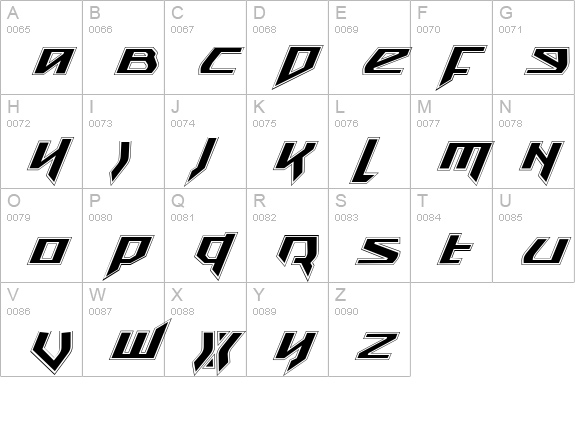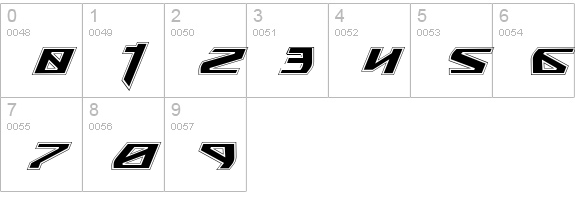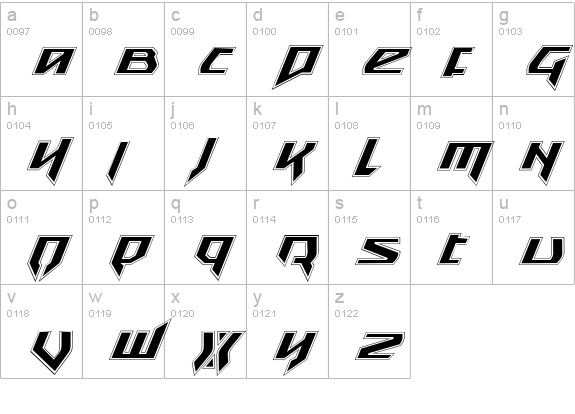
Snubfighter Academy Italic is a distinctive, italic variant in the Snubfighter typeface family \xE2\x80\x94 well suited to design and typography projects.
Snubfighter Academy Italic font exudes a sense of modern sophistication and sleek elegance, making it the perfect choice for projects that require a touch of refinement. Its sleek, slanted style adds a dynamic and contemporary flair to any design, whether it be for branding, advertising, or editorial purposes. With its clean lines and stylish curves, Snubfighter Academy Italic font strikes the perfect balance between professionalism and creativity, making it a versatile option for a wide range of design projects. Its italicized form adds a touch of flair and personality to text, making it stand out while maintaining a sense of class and sophistication. The best part? Snubfighter Academy Italic font is available for free download at FontsMarket.com, allowing you to easily access this premium font without breaking the bank. Enhance your design projects with the effortless style and elegance of Snubfighter Academy Italic font today!